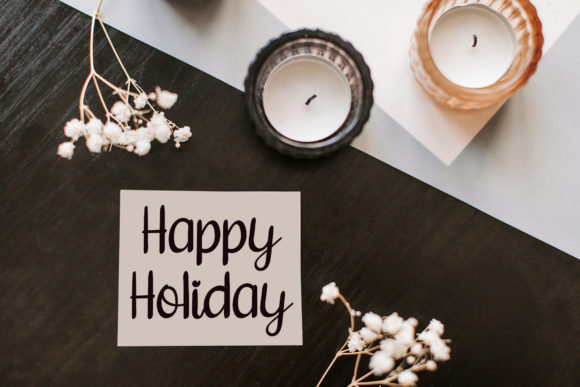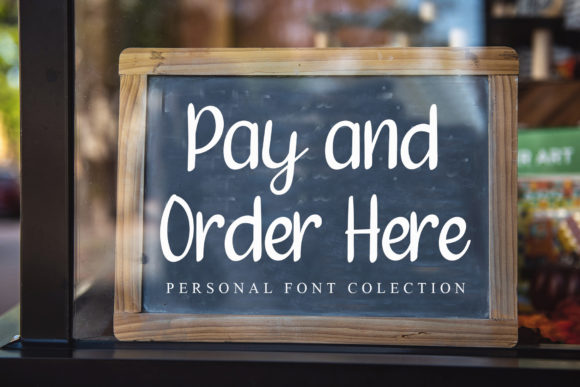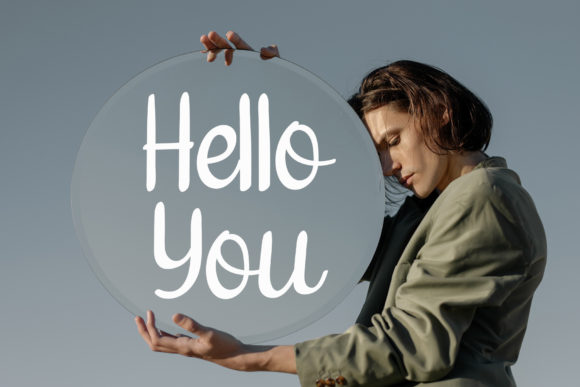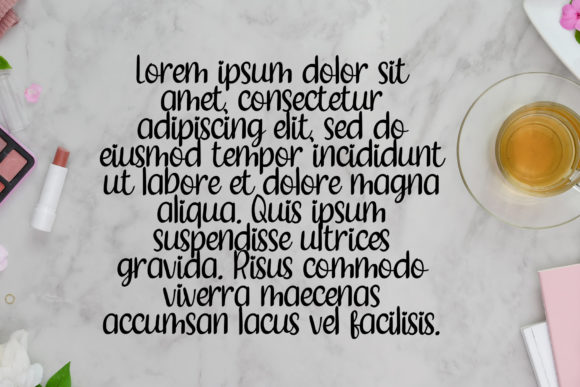
Coffee Font
About Coffee Font
Coffee is a unique and elegant handwritten font specially designed just for you. This font is made with a professional hand touch and is perfect for your work projects, from greeting cards to wedding invitations, birthdays, and all types of parties. This font is also suitable for use in your creative ideas for school assignments or other important events. Apply this font with your creative ideas to make them look better.